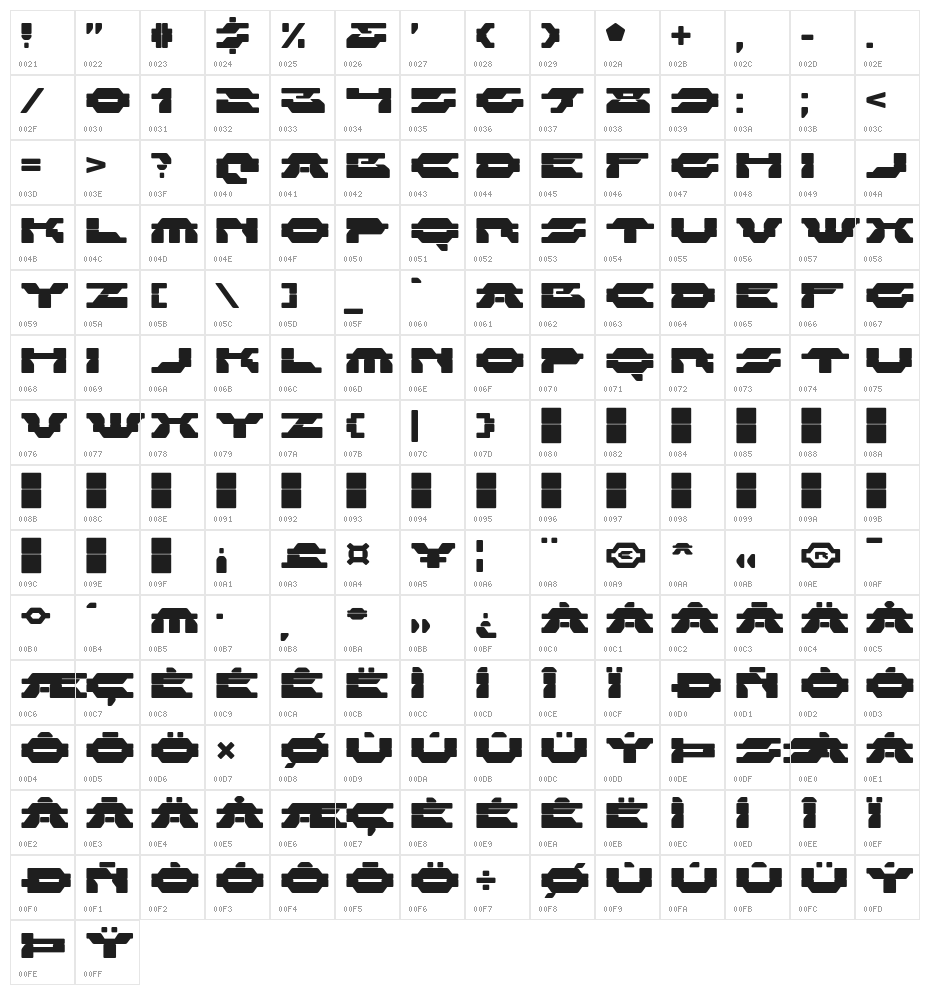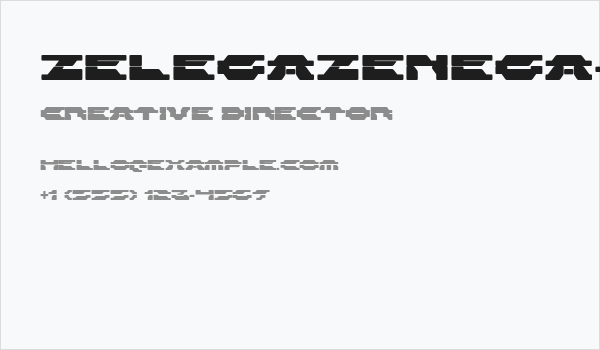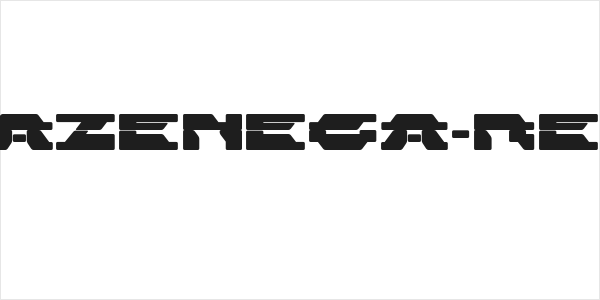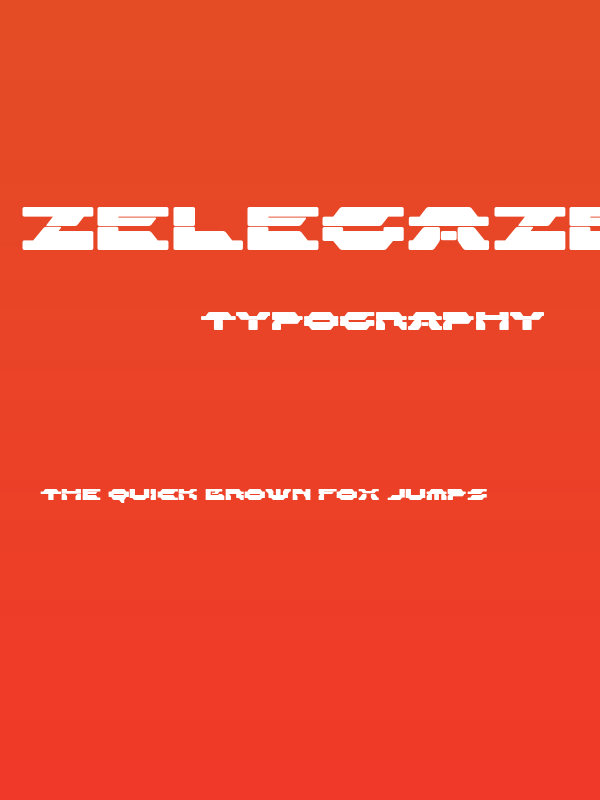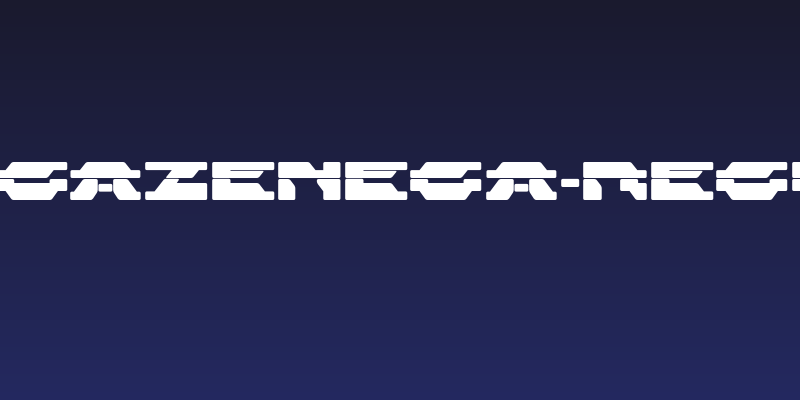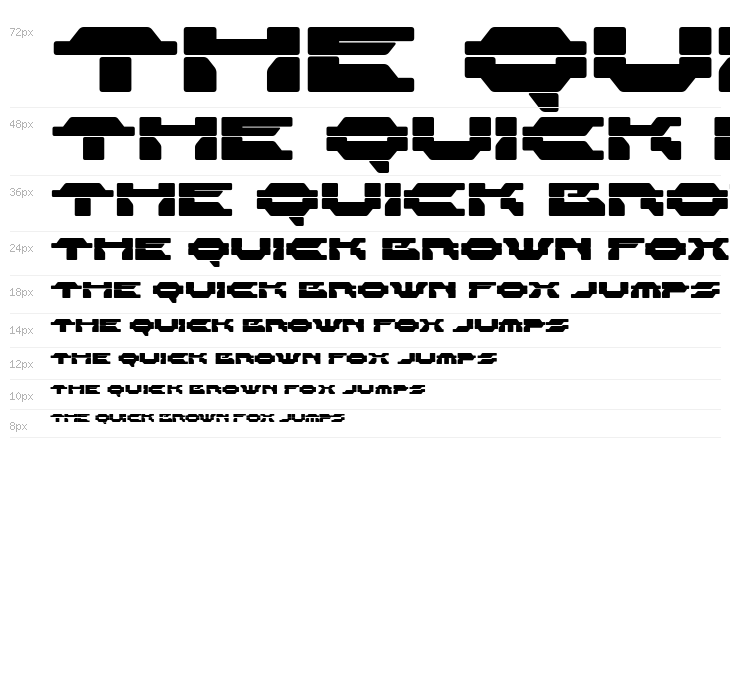
ZelegaZenega-Regular Font
ZelegaZenega-Regular Description
This font features a bold, futuristic design with geometric shapes and sharp angles. The characters are constructed with a blocky, stencil-like appearance, giving it a strong and industrial feel. The uppercase and lowercase letters maintain a consistent style, with each character exhibiting a unique cut-out pattern that adds to its distinctiveness. The numerals and special characters follow the same design principles, ensuring uniformity across the typeface. Its boldness and unique style make it stand out, ideal for projects that require a modern and edgy look.
| Categories | Stencil |
| Overall Style | Futuristic, Industrial |
| Proposed Projects | Ideal for sci-fi themed projects, video game titles, posters, and branding that requires a modern and edgy aesthetic. |